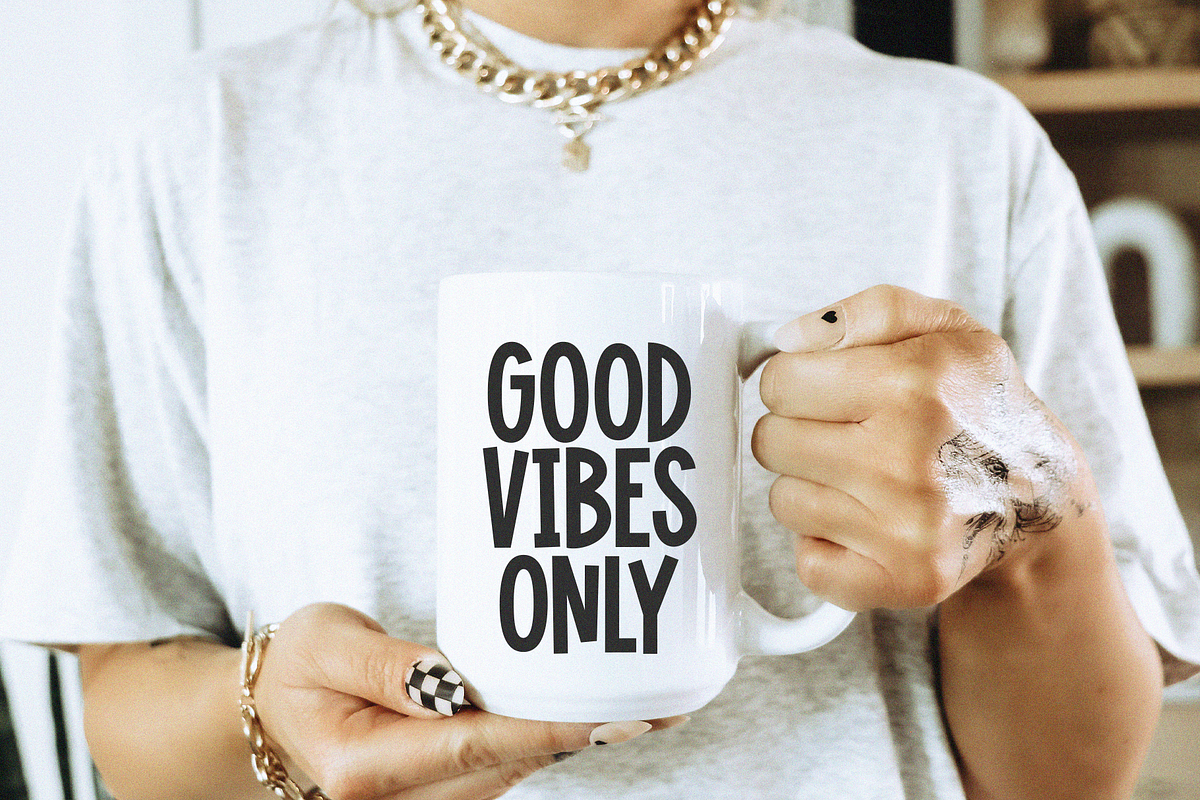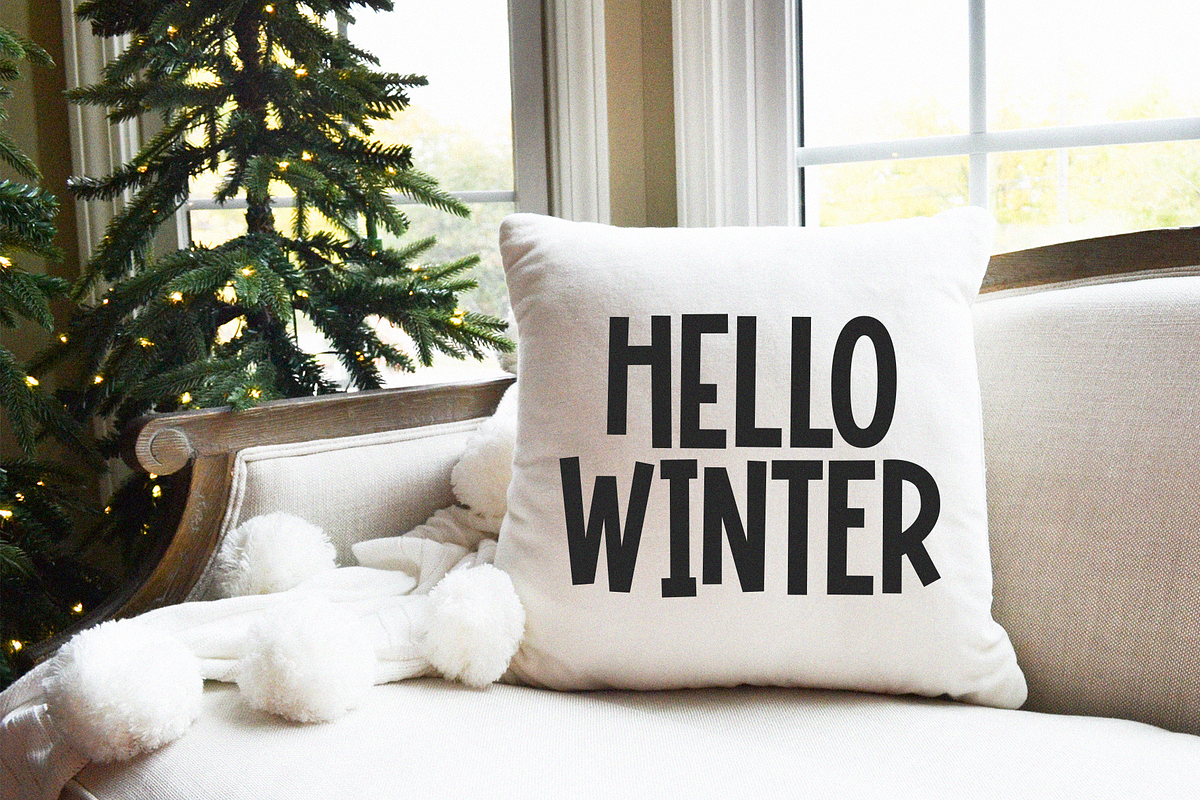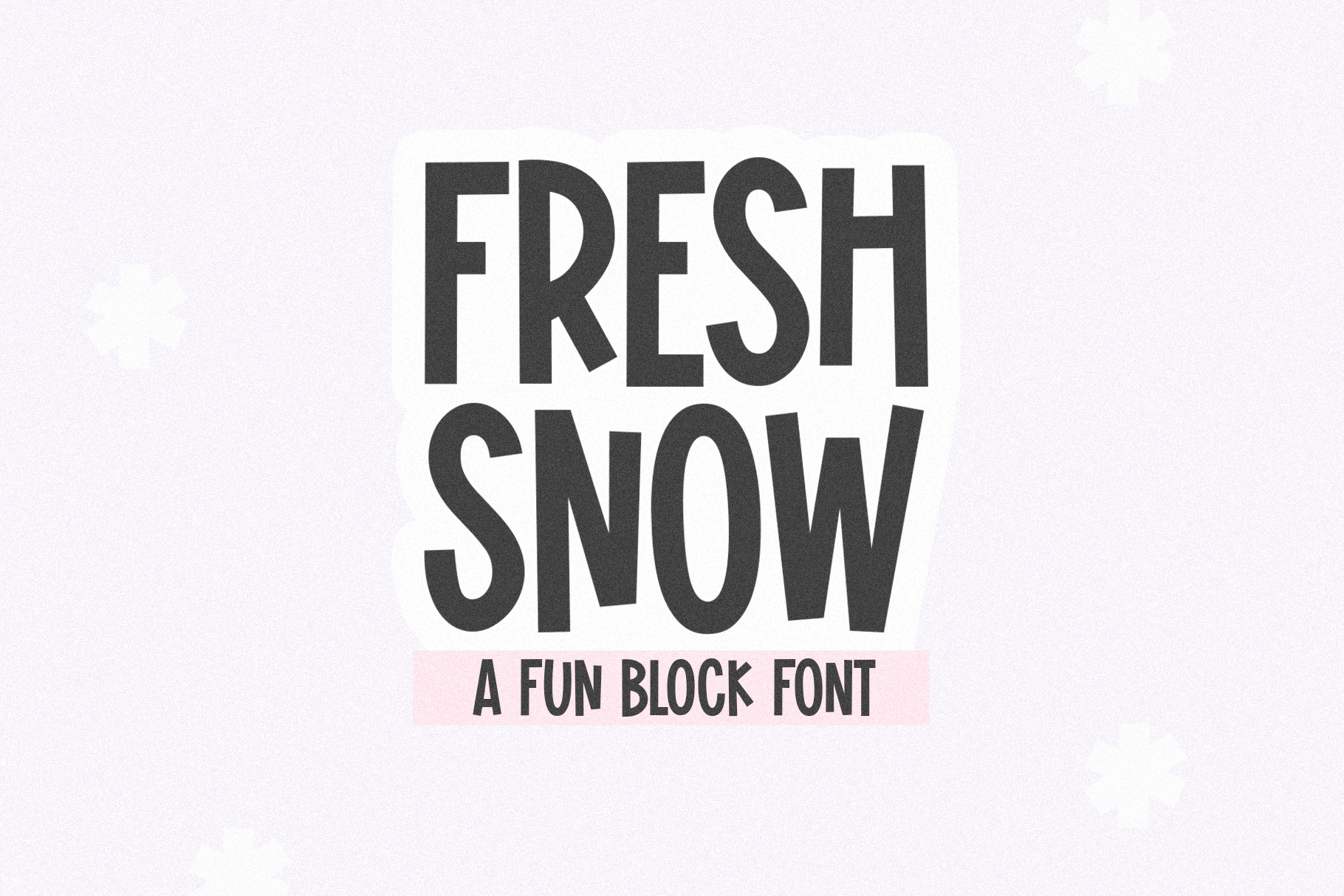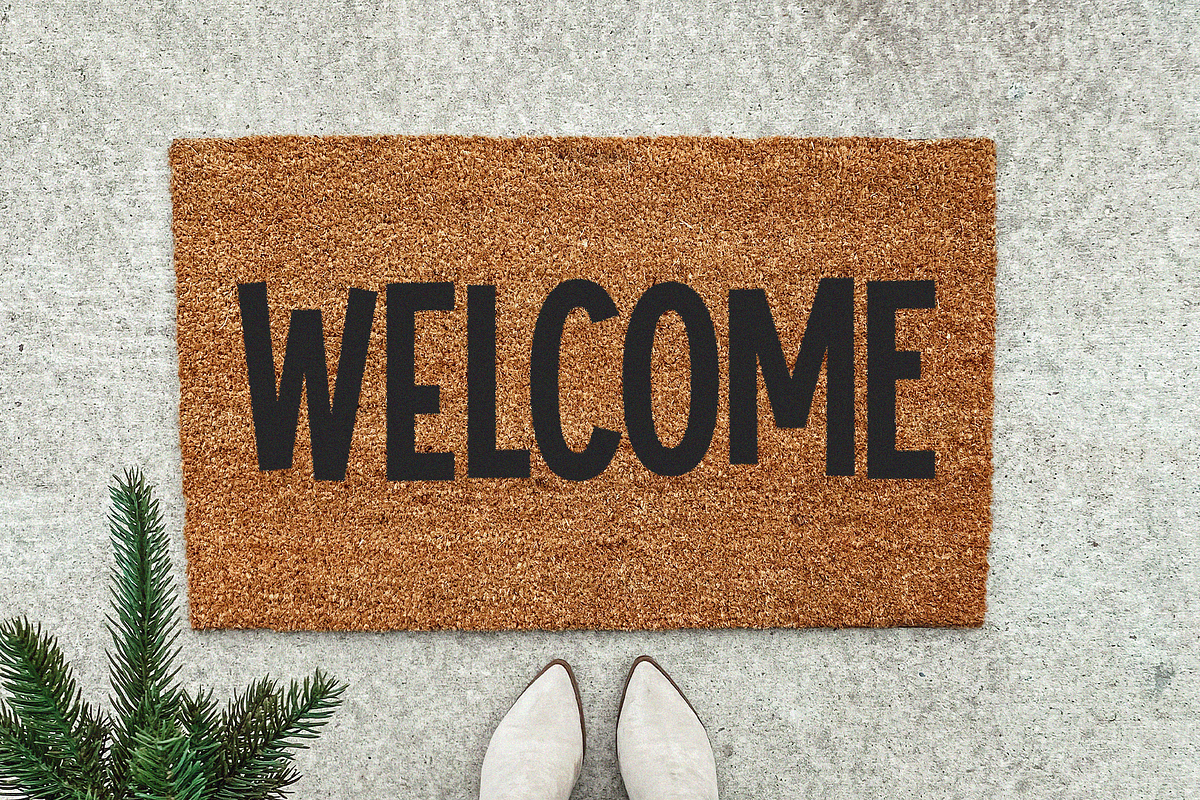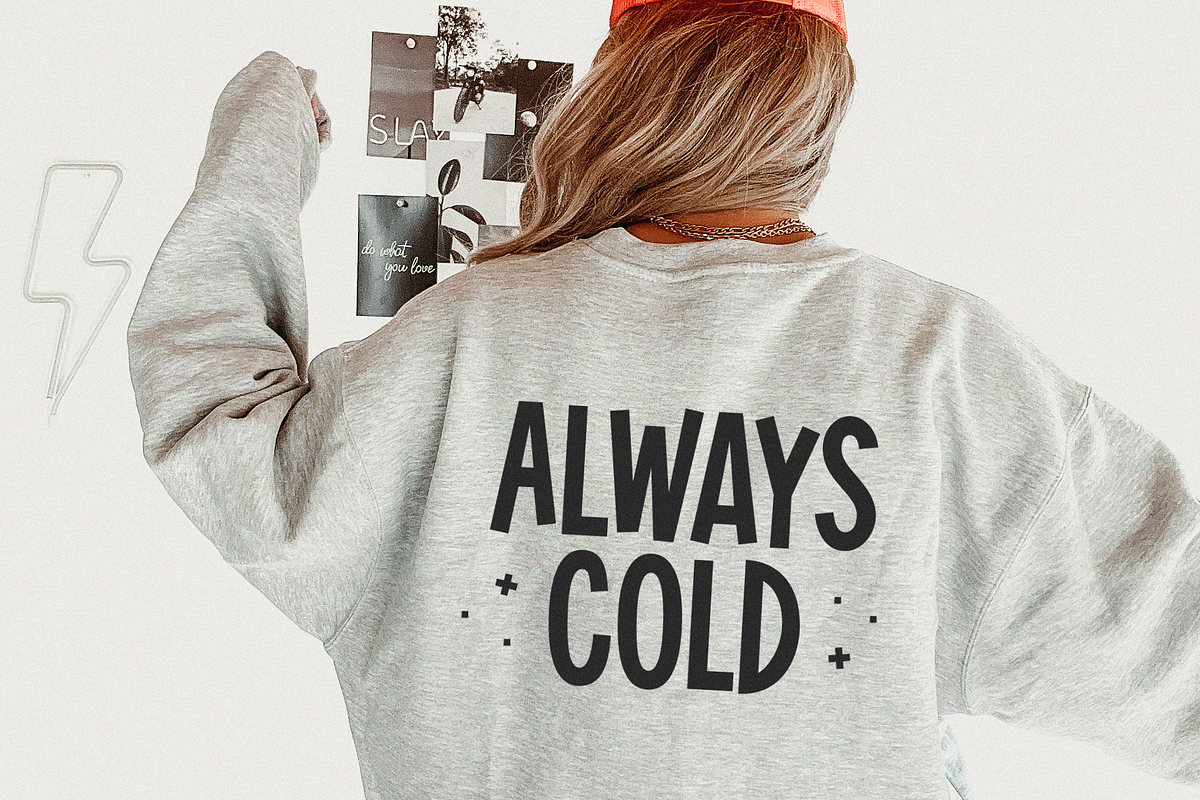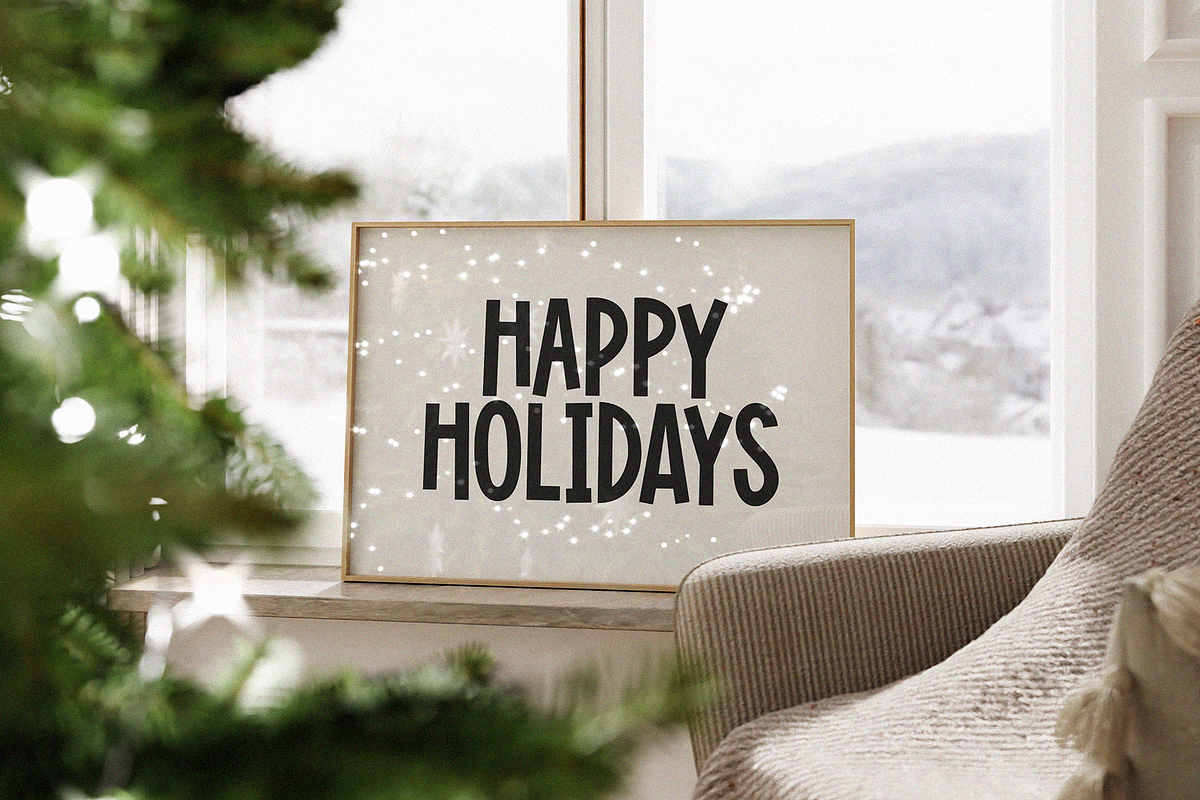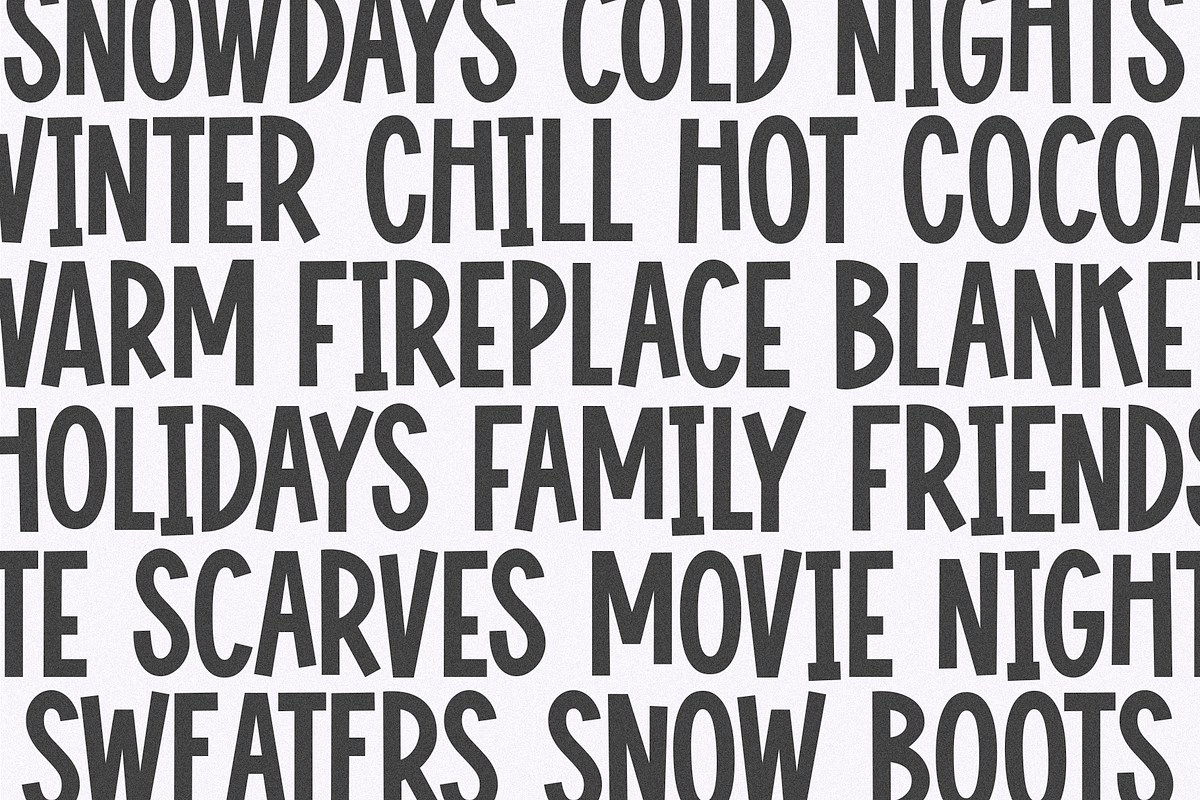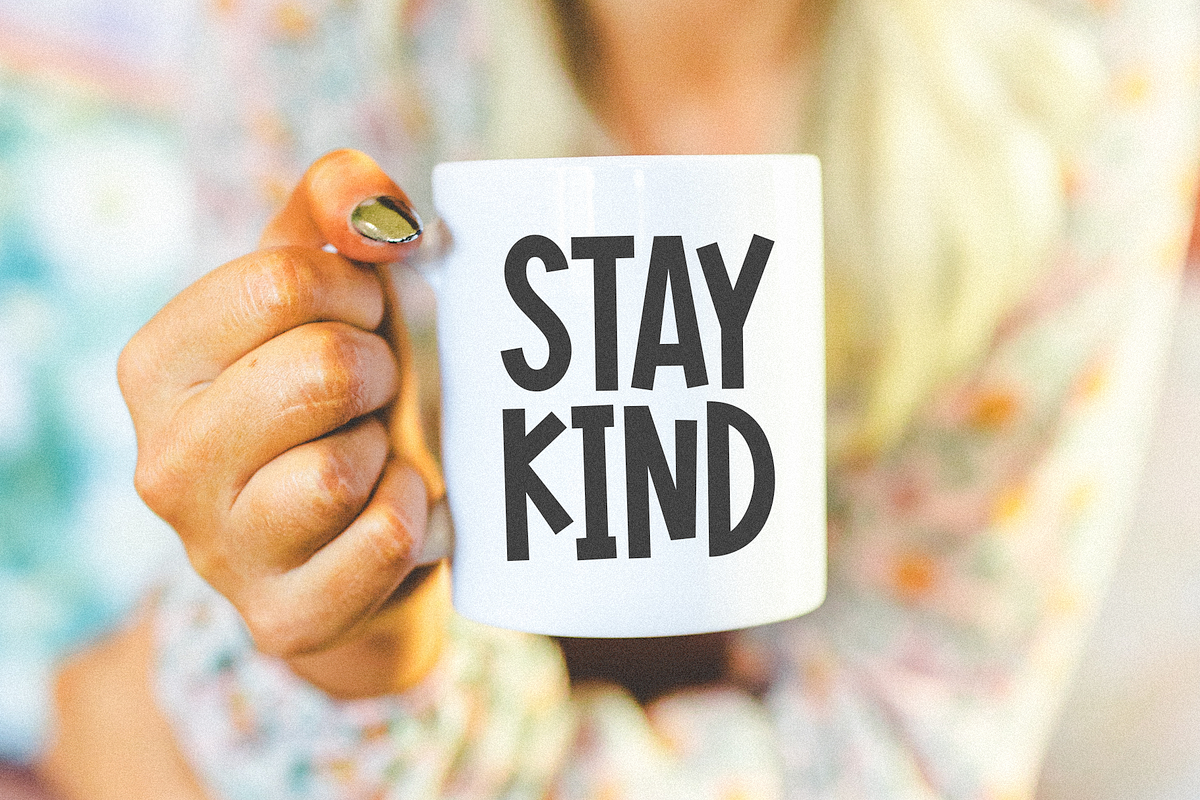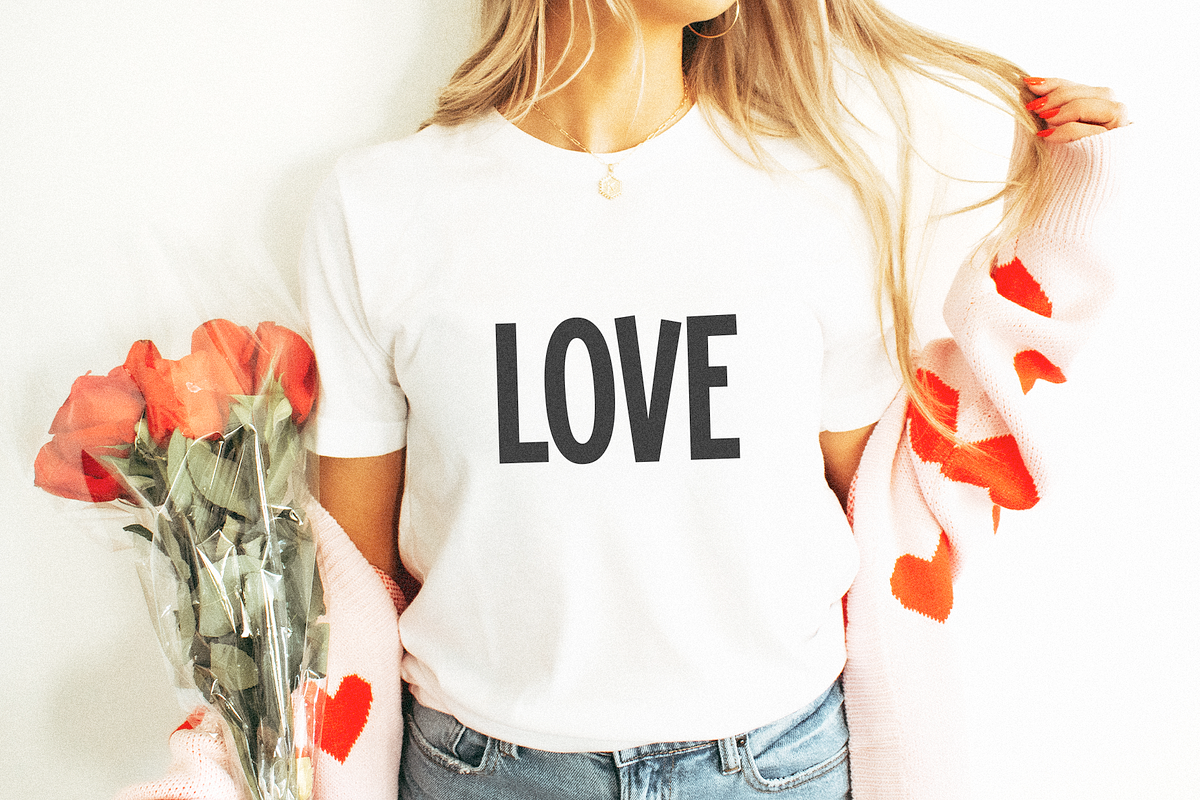
Fresh Snow | Cute Block Font
Fresh Snow is a fun block font!
This font is perfect for cricut projects, svg files, teachers, bulletin boards, procreate, logos, quotes, shirts, mugs and more!